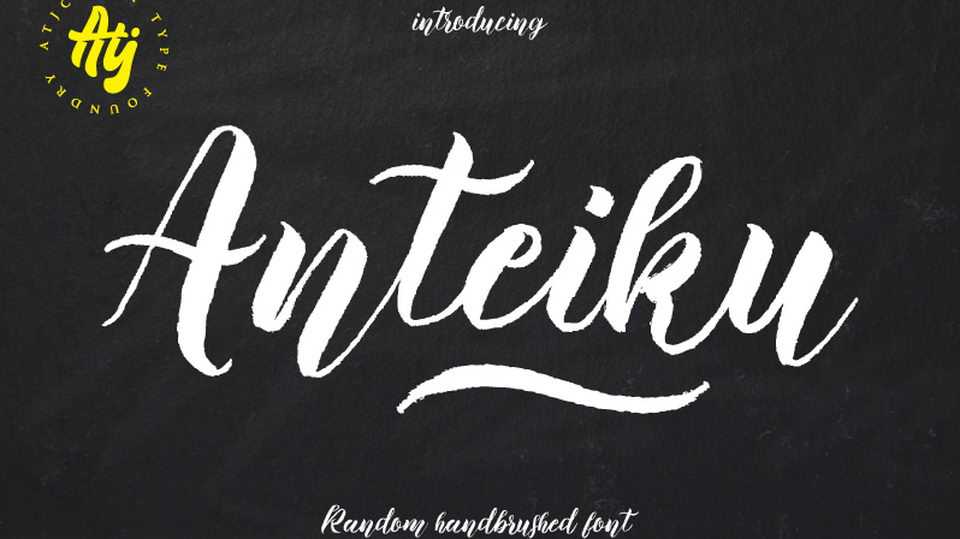
Download Anteiku font, a beautiful random handbrushed script with a natural flow. Anteiku font is great for crafts, prints, social media, quotes and other artworks.
Designer: Atjcloth Studio